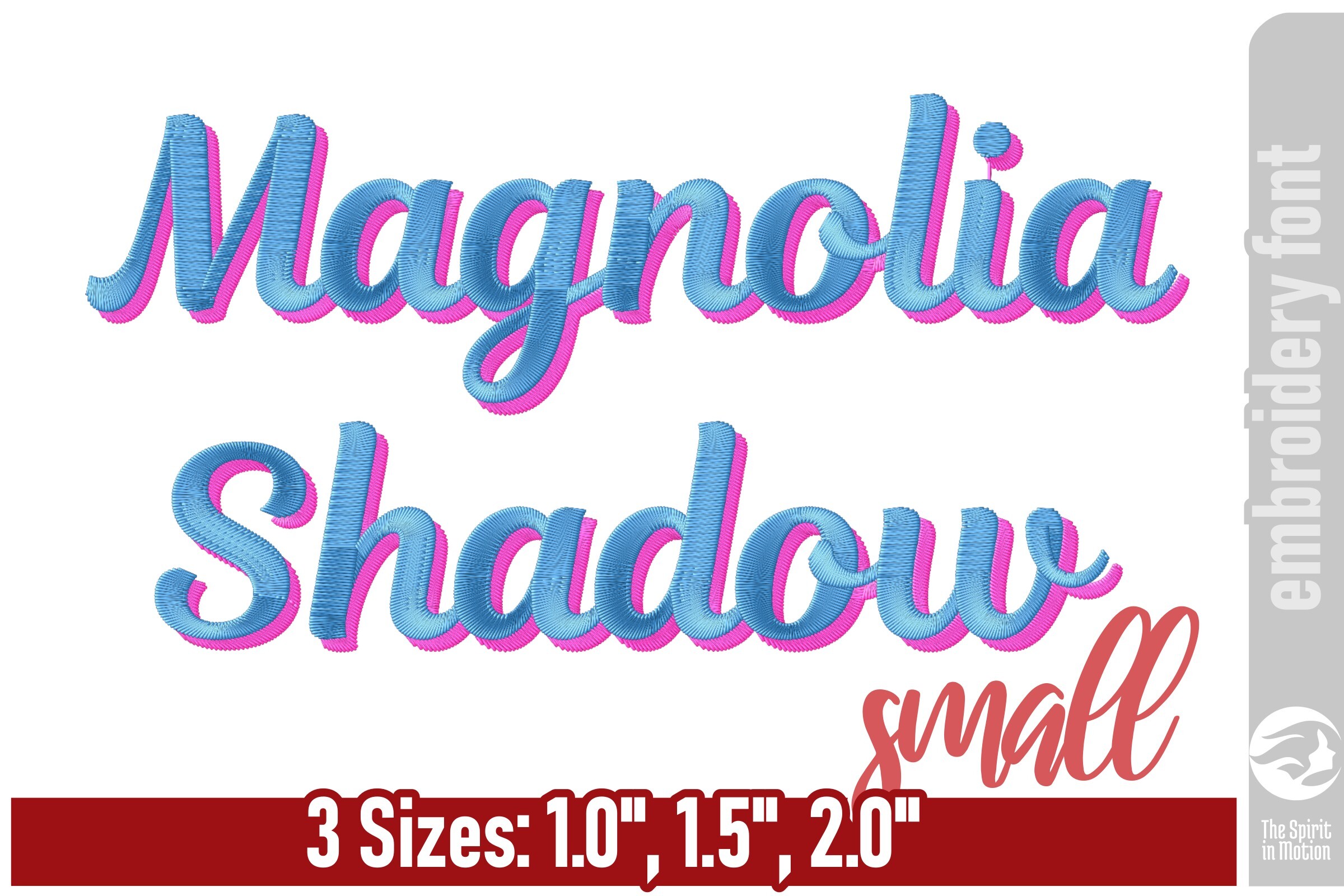
Magnolia Shadow Embroidery Font - Small
Magnolia Shadow is a graceful, flowing script embroidery font perfect for adding both elegance and playfulness to your projects. With its smooth connections, double satin features and soft curves, it’s ideal for names, monograms, wedding accents, baby items, and personalized gifts. Carefully digitized for clean stitch-outs and consistent results, this stylish font brings a modern feel to machine embroidery. The sizes and stitches information shown below is for “A” and “a” in each size. This is provided as a summary of what is available in this download file. For the full dimension details of the 156 letters in this set, click on the More Sewing Info (PDF) button on this page.